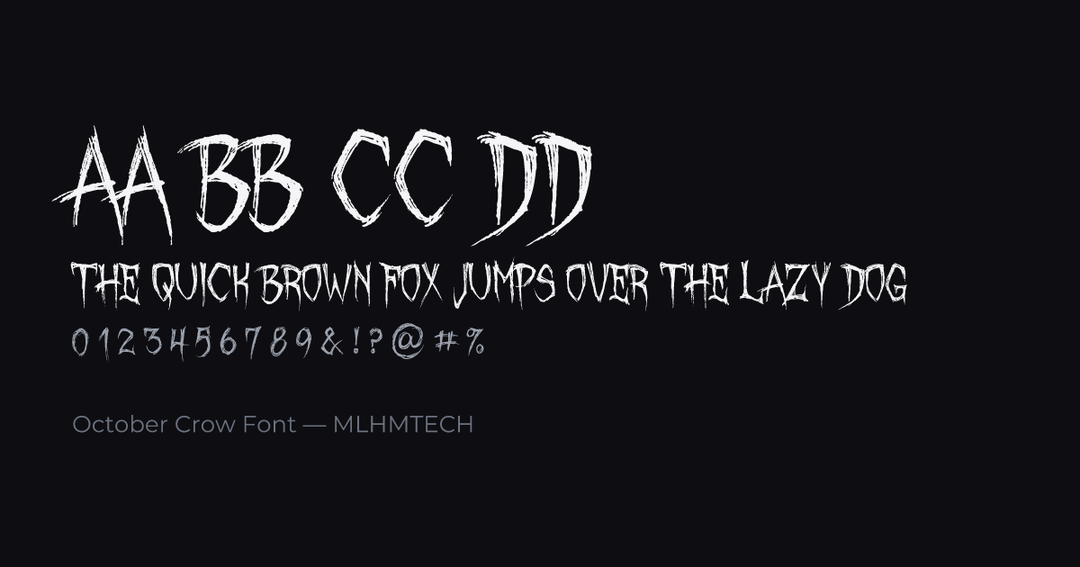
October Crow Font
October Crow is a spooky handwritten display font that adds a chilling, gothic touch to any design. Perfect for Halloween-themed projects, posters, and social media graphics.
October Crow is a decorative display font with a spooky, handwritten style. Its irregular strokes and eerie character shapes evoke a sense of horror and mystery, making it ideal for Halloween invitations, horror movie posters, or any project that needs a dark, atmospheric vibe.
Whether you're designing a haunted house flyer, a spooky social media post, or a creepy logo, October Crow will bring your creative vision to life with its unique character.